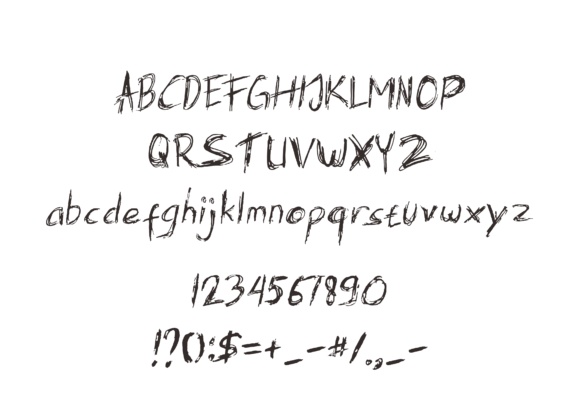
Discover the Unique Charm of Ceu Gense Font: A Quirky Handwriting Font
Are you tired of using the same old fonts in your designs? Look no further than Ceu Gense Font, a unique and quirky font that is sure to add a touch of personality to your work. In this article, we’ll take a closer look at Ceu Gense Font, its origins, and what makes it so special.
The Story Behind Ceu Gense Font
Ceu Gense Font was originally created with the intention of mimicking the look of stroke pen jam. However, as the font took shape, it became clear that it had a life of its own. Instead of a smooth, fluid look, Ceu Gense Font emerged as a font that resembles terrible handwriting.
While this may sound like a mistake, the resulting font has a certain charm that is hard to deny. The irregularities and imperfections of Ceu Gense Font give it a unique character that is sure to stand out in any design.
What Makes Ceu Gense Font So Special?
So, what sets Ceu Gense Font apart from other fonts out there? Here are just a few things that make it special:
- Unique Character: As mentioned earlier, Ceu Gense Font has a one-of-a-kind look that is sure to grab attention. Its irregularities and imperfections give it a personality that is hard to find in other fonts.
- Handwritten Look: Ceu Gense Font has a distinctly handwritten look that is perfect for designs that need a personal touch. Whether you’re creating a poster, a greeting card, or a social media graphic, Ceu Gense Font is sure to add a touch of warmth and personality.
- Versatility: Despite its unique character, Ceu Gense Font is surprisingly versatile. It can be used in a variety of contexts, from formal to informal, and can be paired with a range of other fonts to create a unique look.
Who is Ceu Gense Font For?
Ceu Gense Font is perfect for designers and crafters who are looking to add a touch of personality to their work. Here are just a few examples of who might benefit from using Ceu Gense Font:
- Graphic Designers: Graphic designers who are looking to create unique and eye-catching designs will love Ceu Gense Font. Its irregularities and imperfections make it perfect for creating posters, flyers, and other marketing materials.
- Crafters: Crafters who enjoy making their own cards, gift tags, and other paper crafts will adore Ceu Gense Font. Its handwritten look is perfect for adding a personal touch to handmade projects.
- Social Media Managers: Social media managers who are looking to create engaging and eye-catching graphics will appreciate Ceu Gense Font. Its unique character is sure to help your social media posts stand out from the crowd.
How to Use Ceu Gense Font
- Pair it with Other Fonts: Ceu Gense Font pairs well with a range of other fonts, from clean and simple sans serifs to elegant scripts. Experiment with different pairings to find the look that works best for your design.
- Use it for Headlines: Ceu Gense Font is perfect for headlines and titles, where its unique character can really shine. Try using it to add a touch of personality to your blog posts, articles, or social media posts.
- Experiment with Colors: Ceu Gense Font looks great in a range of colors, from bold and bright to soft and pastel. Experiment with different colors to find the look that works best for your design.
Ceu Gense Font is a unique and quirky font that is sure to add a touch of personality to your designs. Its irregularities and imperfections give it a one-of-a-kind character that is hard to deny. Whether you’re a graphic designer, crafter, or social media manager, Ceu Gense Font is a great choice for anyone looking to add a little something extra to their work.
So why not give Ceu Gense Font a try? With its versatility, unique character, and handwritten look, it’s sure to become a favorite in your design toolkit.